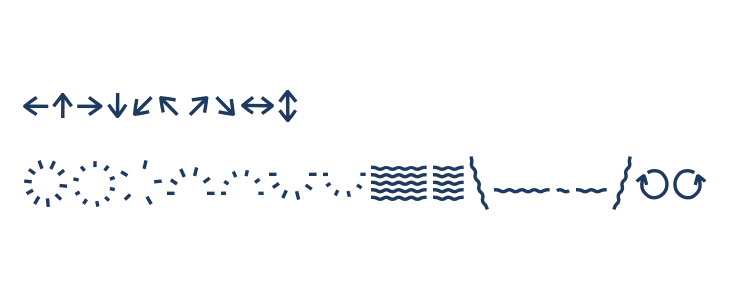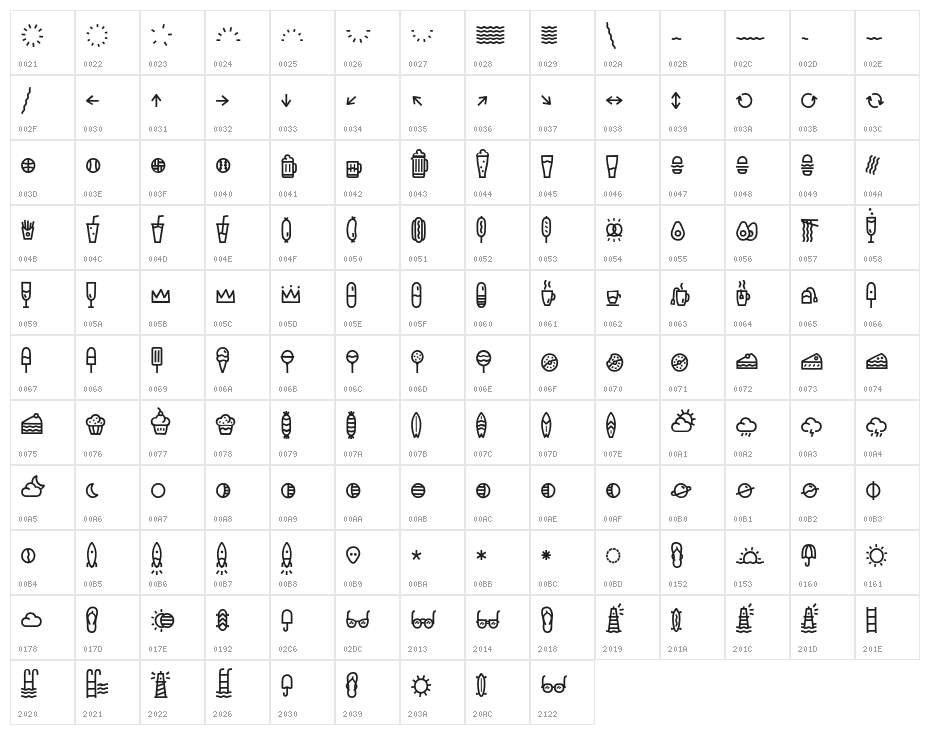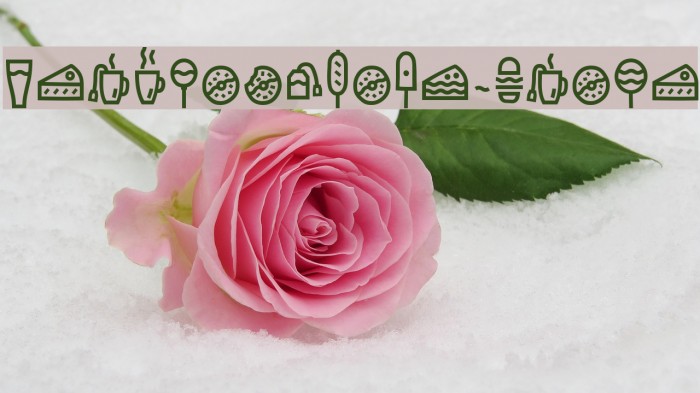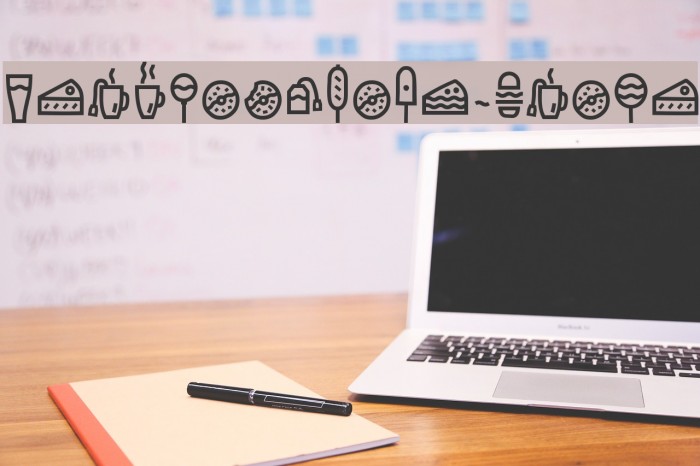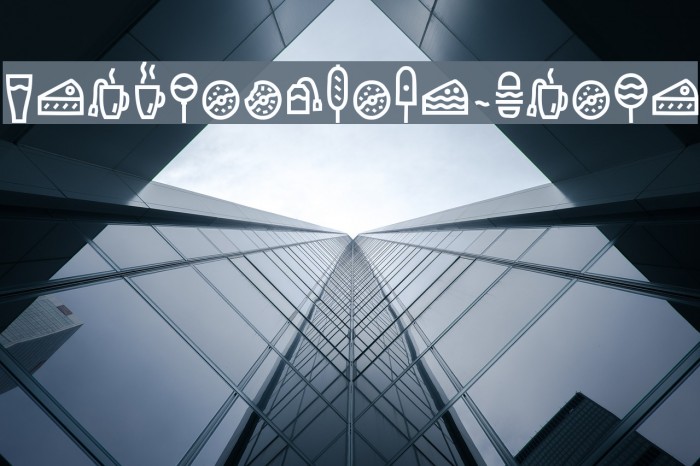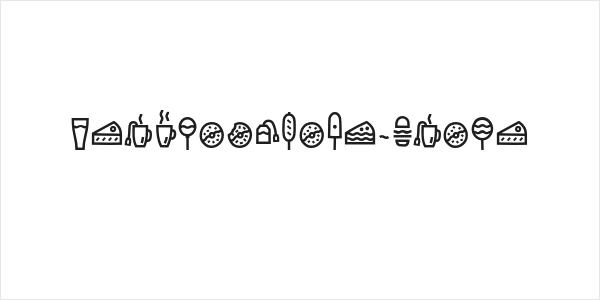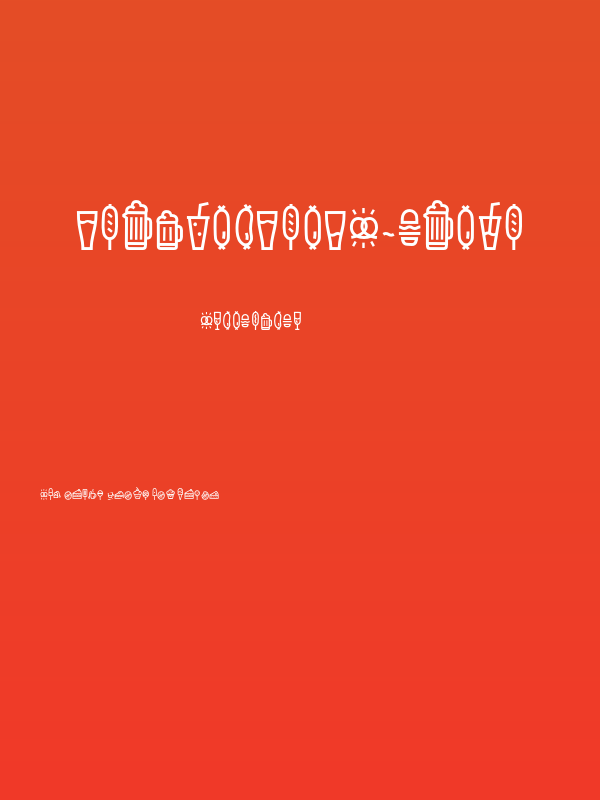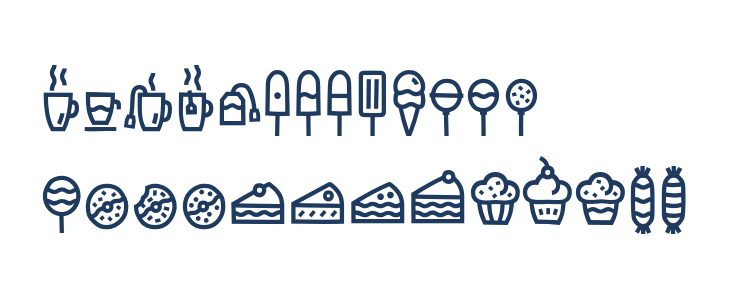
EscalopeSoft-Icons Font
EscalopeSoft-Icons Description
A playful icon set featuring outlined illustrations of food, drinks, desserts, arrows, and nautical symbols. The icons are consistent in line weight, rounded corners, and minimalistic details, making them easily recognizable and visually cohesive.
| Overall Style | Playful, Modern, Minimalistic |
| Use Case | Icons, UI elements, Branding, Infographics |
| Proposed Projects | Menus, restaurant branding, food delivery apps, infographics, children's books, signage, web UI elements. |